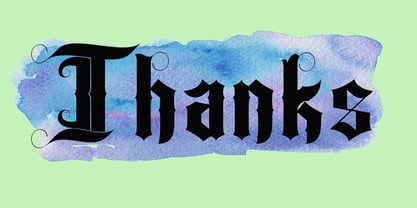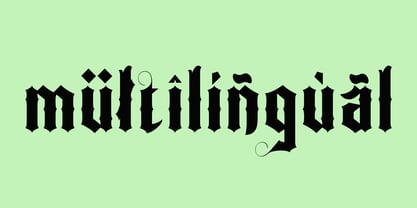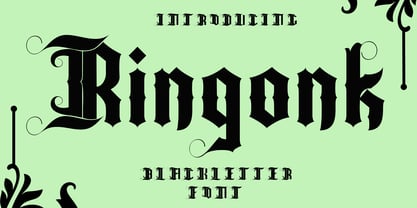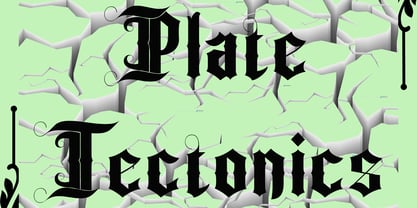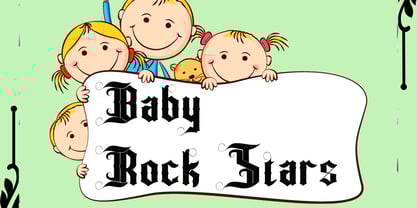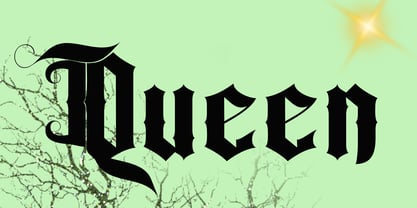
Ringonk
by Canden Meutuah
The Ringonk Font Family was designed by Canden Meutuah and published by Canden Meutuah. Ringonk contains 1 styles. More about this family
this is a stylish and bold and beautiful new blackletter font that perfectly offers beautiful typographic harmony for a wide variety of design projects, including logos and branding, social media posts, advertisements, greeting cards, stationery designs, invitations, T-shirts, clothing, packaging, posters, and much more for other product designs.